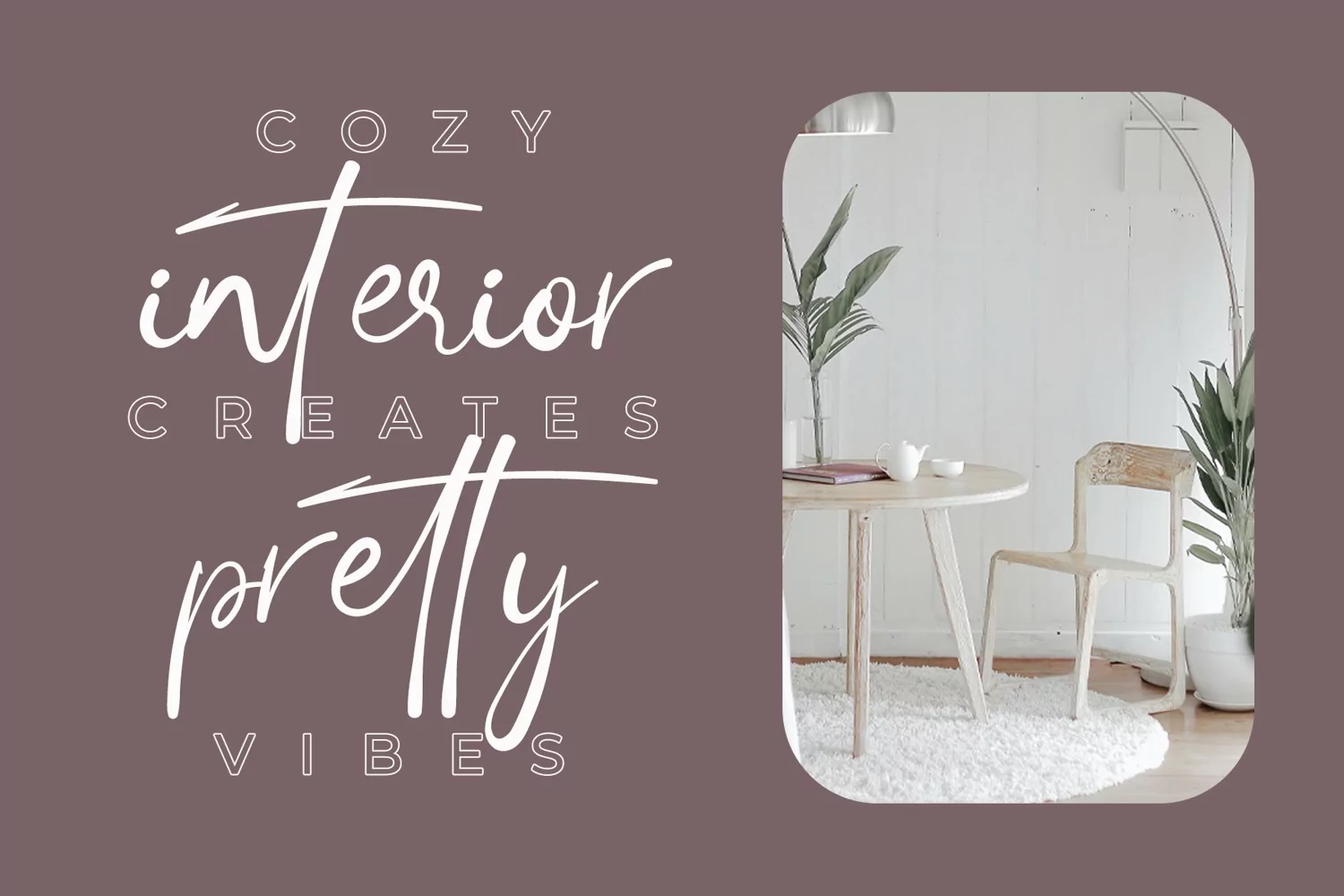
Jinstage is tiny casual signature script with elegance. This is simple and having handwritten feel.
Jinstage is perfect font for any design, such as wedding invitation, christmas design, crafting, sticker, sublimation, t-shirt design, quotes and many more.
Jinstage